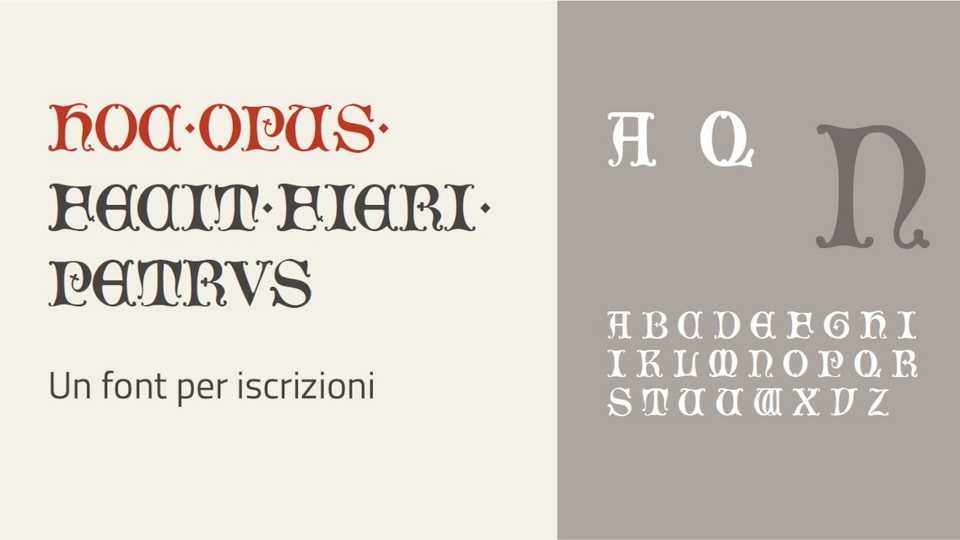
Download Hoc Opus font, a decorative typeface based on the exquisite lettering found in 13th-century manuscripts. It captures the essence of illuminated manuscripts, particularly in its ornate initial letters.
Designer: Michele Casanova